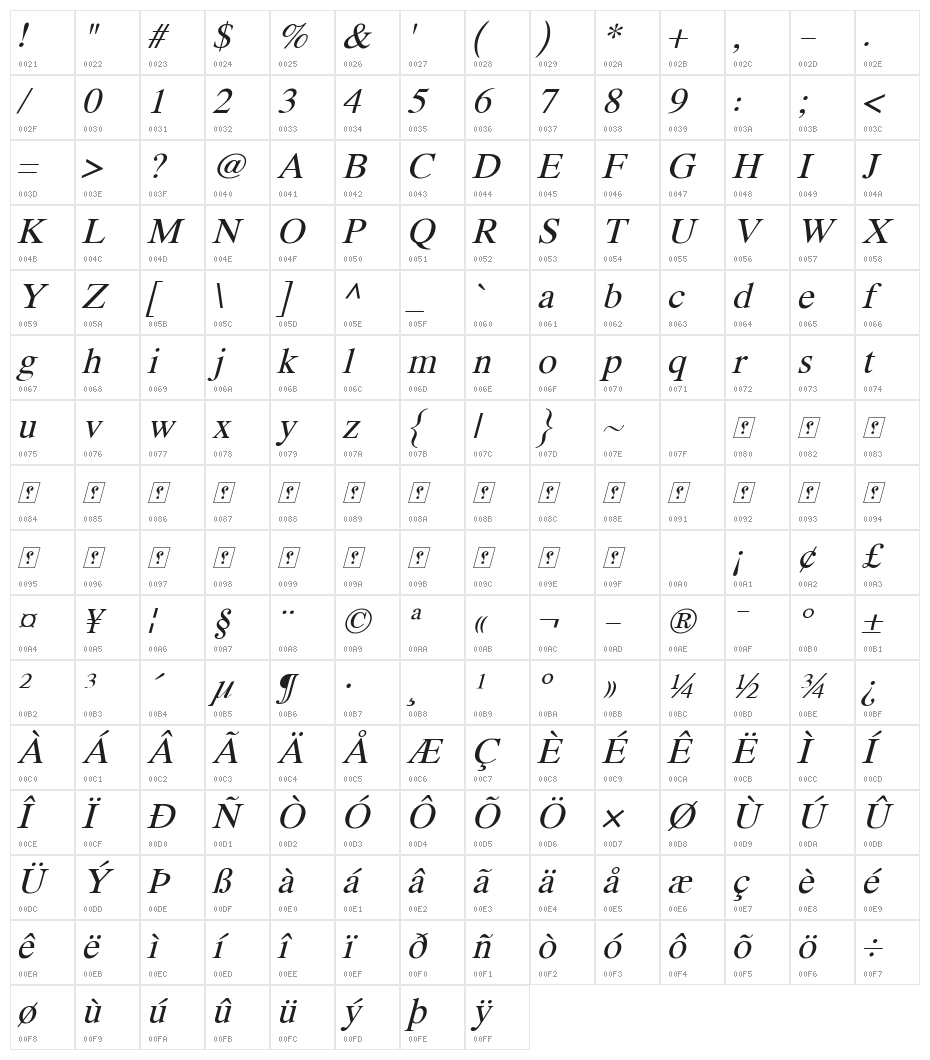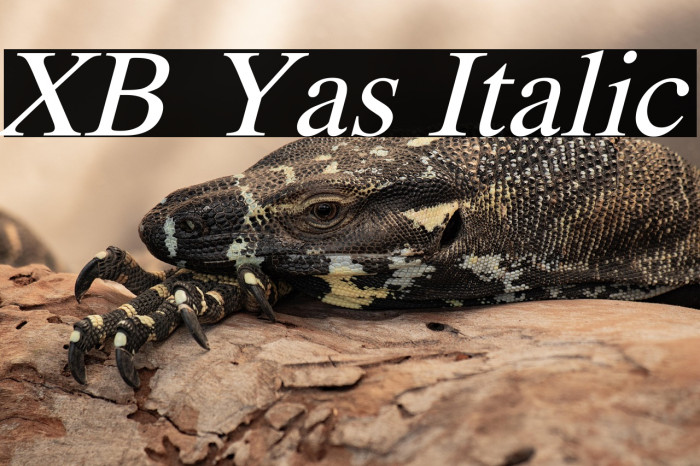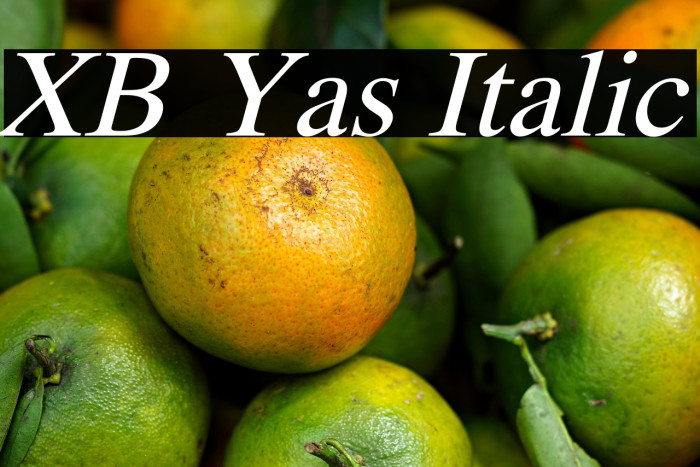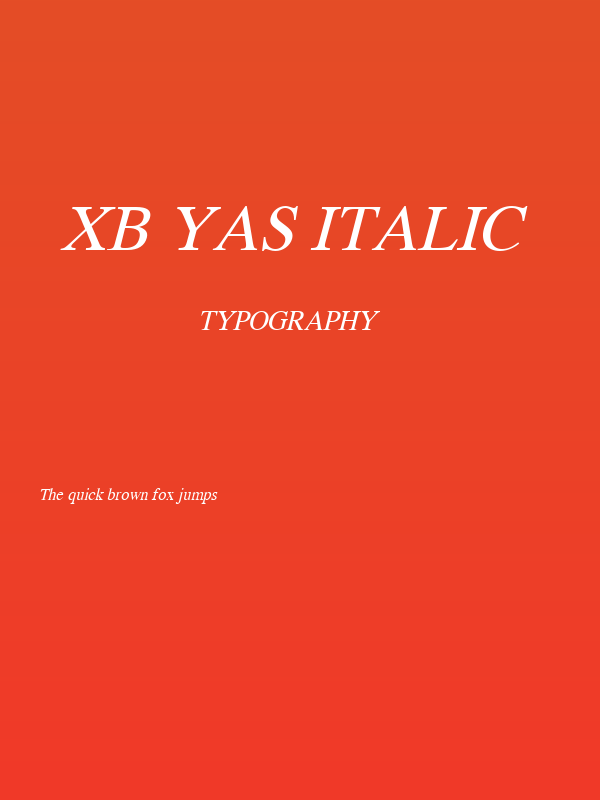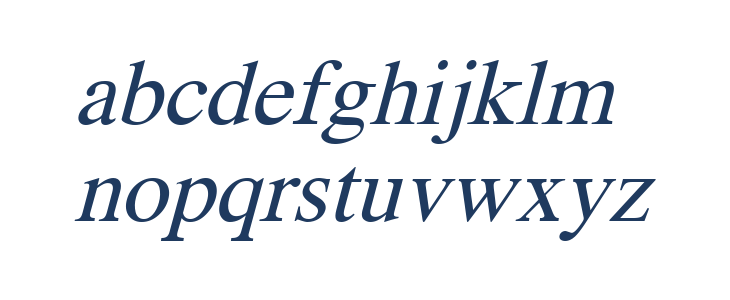
XB Yas Italic Font
XB Yas Italic Description
This elegant serif typeface features a classic italic style, characterized by its smooth, flowing lines and slight slant to the right. The uppercase letters are well-proportioned, with a refined and sophisticated appearance. The lowercase letters maintain a consistent style, with distinctive curves and a harmonious balance. The numerals are clear and legible, complementing the overall aesthetic. Special characters are thoughtfully designed, ensuring versatility across various applications. The font's italic nature adds a touch of elegance, making it suitable for formal and creative projects alike.